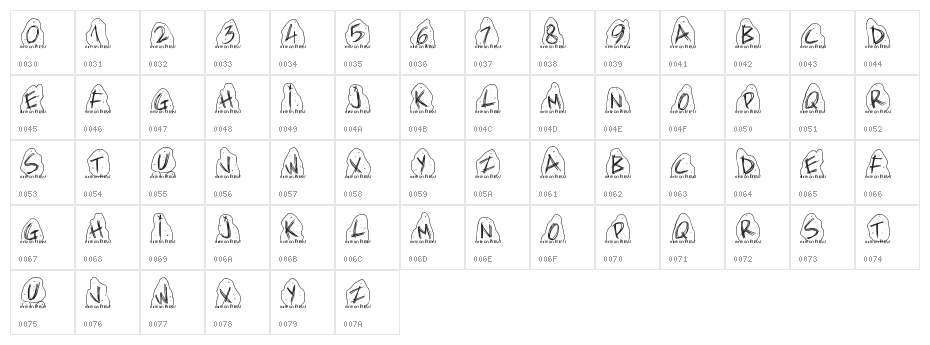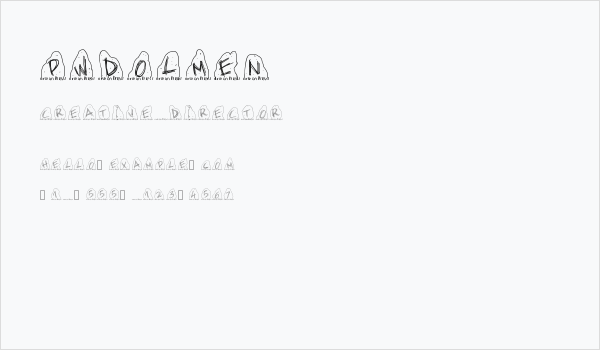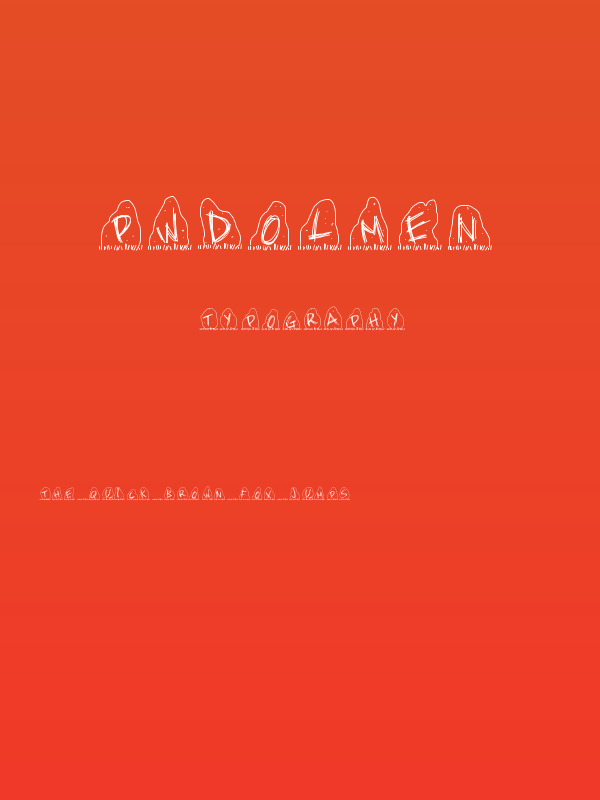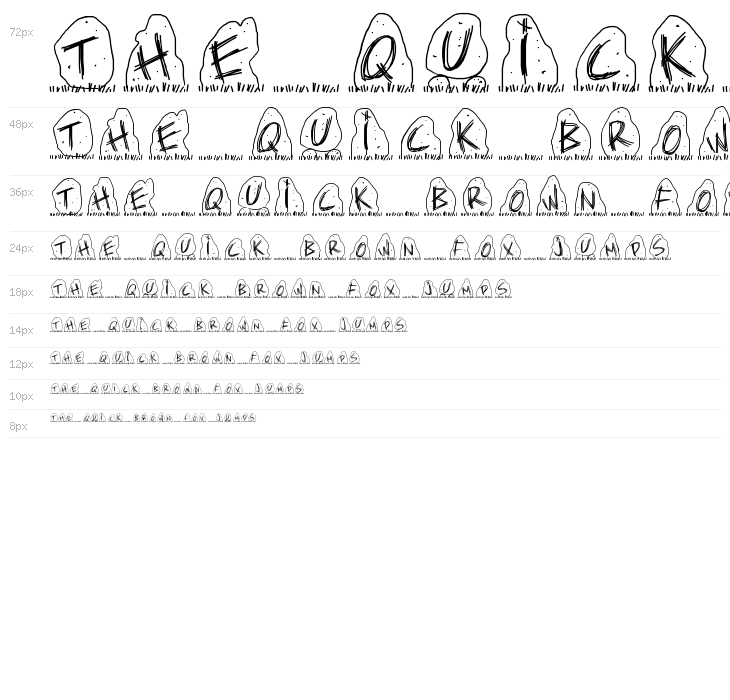
PWDolmen Font
PWDolmen Description
This font features a playful and whimsical design, with each character encapsulated within a stone-like shape, giving it a prehistoric or ancient feel. The letters are uppercase and lowercase, with numbers and a selection of special characters. The strokes are uneven and hand-drawn, adding to the rustic charm. The overall appearance is reminiscent of cave drawings or stone carvings, making it ideal for projects that require a touch of antiquity or a playful, childlike aesthetic. The characters are well-spaced, ensuring readability despite the decorative elements.
Proposed ProjectsIdeal for children's books, educational materials, themed event invitations, or any project needing a playful, ancient look.